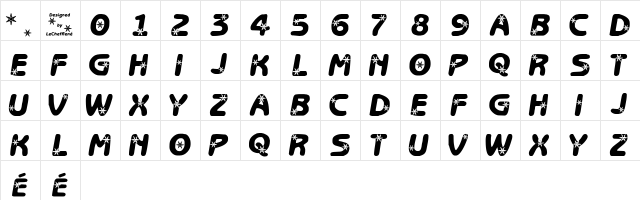
LCR Itz Snowflakes Regular
Design Context for LCR Itz Snowflakes Typeface
LCR Itz Snowflakes is a composed and adaptable typeface that performs quietly and consistently across a wide range of design contexts.